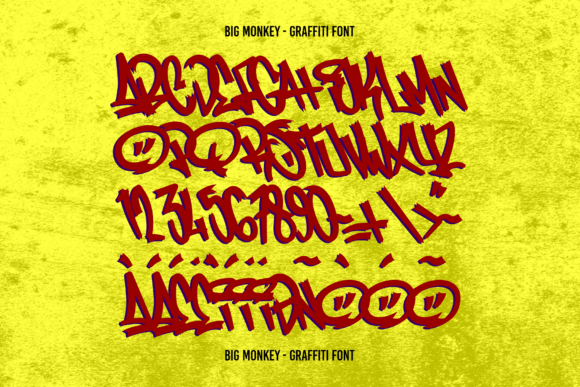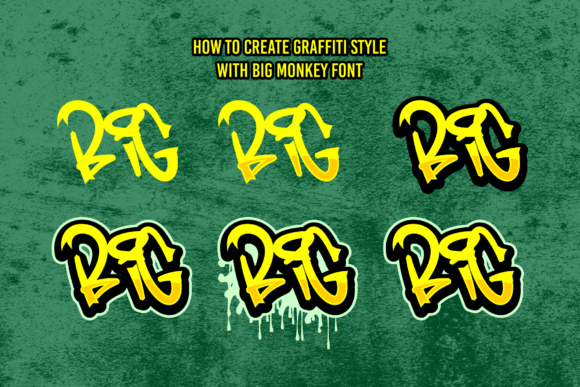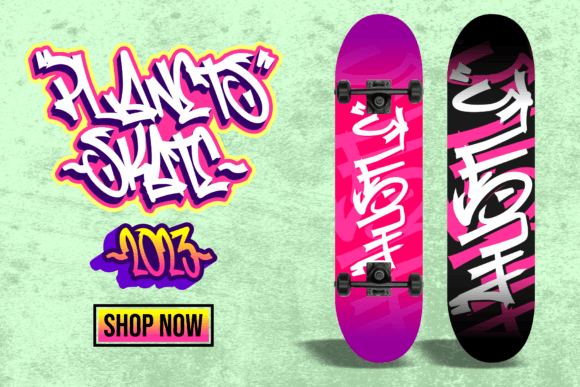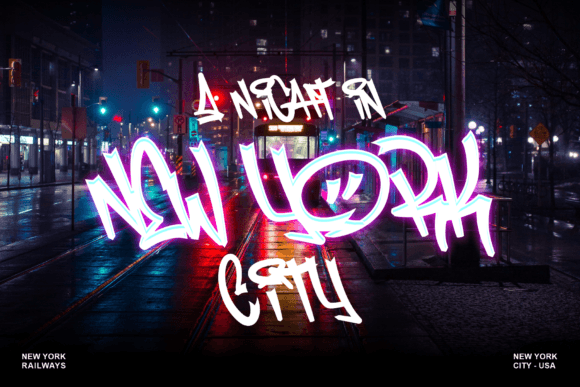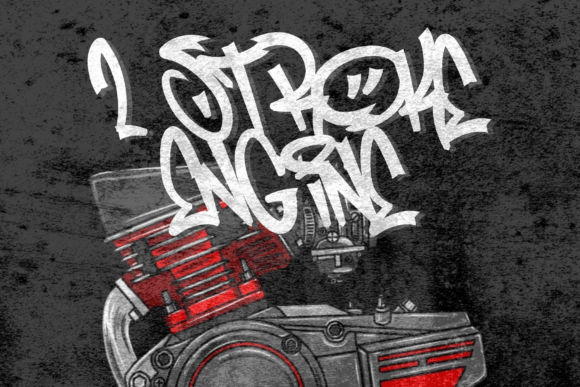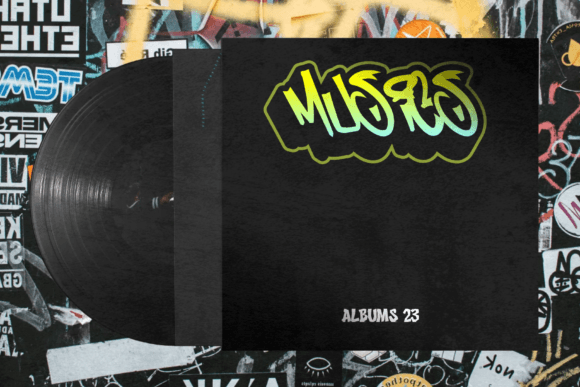
The Ultimate Urban Typography: Unleashing the Power of Big Monkey Font
As you step out into the city streets, the vibrant murals and graffiti that adorn the walls are more than just a visual spectacle – they’re a reflection of the urban spirit. It’s that same energy that drives graffiti artists and designers to create bold, eye-catching typography that commands attention. And for those seeking to tap into that raw, rebellious vibe, Big Monkey Font is the perfect tool.
Big Monkey Font is a powerful, oversized typeface that embodies the essence of urban cool. Its bold, rugged lettering is designed to cut through the noise and make a statement. Whether you’re working on a graffiti project, creating street art, or simply looking to add some edgy flair to your designs, Big Monkey Font is an invaluable resource. With its authentic, street-savvy character, it’s the ultimate choice for anyone seeking to unleash the raw energy of the city onto their canvas.
Big Monkey Font Key Features
- Font Family: Big Monkey Font is a unique, hand-drawn font that offers a fun and playful look.
- Unique Characteristics: Big Monkey Font features a bold, expressive style with intricate details and textures, giving it a one-of-a-kind look.
Designer Review: Big Monkey Font
I recently had the chance to work with the Big Monkey Font, and I’m excited to share my honest thoughts on this quirky font.
- The playful and energetic vibe of the font is infectious – it’s perfect for projects that need a bit of whimsy.
- The bold and chunky design elements work well for titles and headings, making them stand out on the page.
- The font is highly legible, even at smaller sizes, making it a great choice for body text.
- The font’s quirky design can sometimes be overwhelming or distracting, especially in long blocks of text.
- The font lacks a clear serif or sans-serif classification, making it difficult to pair with other fonts in a design.
- The font’s bold weight can make it difficult to read in certain situations, such as on low-resolution screens or in small sizes.
Overall, the Big Monkey Font is a fun and energetic addition to any design project. While it may not be suitable for every project, it’s perfect for those that need a bit of playfulness and whimsy. Just be mindful of the limitations and use it thoughtfully to get the best results.
Tips for Getting the Most Out of “Big Monkey Font”
Use “Big Monkey Font” for bold, playful headings and titles. It’s also great for creating eye-catching social media graphics and posters. To get the most out of this font, experiment with different font sizes and combinations to create visually appealing designs.
“Big Monkey Font” is ideal for:
- Playful branding and marketing materials
- Social media
Alternatives to Big Monkey Font for Designers
Great Vibes Font is a modern, cursive script font perfect for creating a relaxed and friendly atmosphere. It’s ideal for use in invitations, greeting cards, and social media graphics. When to use: For casual, creative projects that require a playful touch.
Comparison to Big Monkey Font: While Big Monkey Font has a more energetic feel, Great Vibes Font is more laid-back and elegant. Great Vibes Font is better suited for projects that require a softer, more approachable tone.